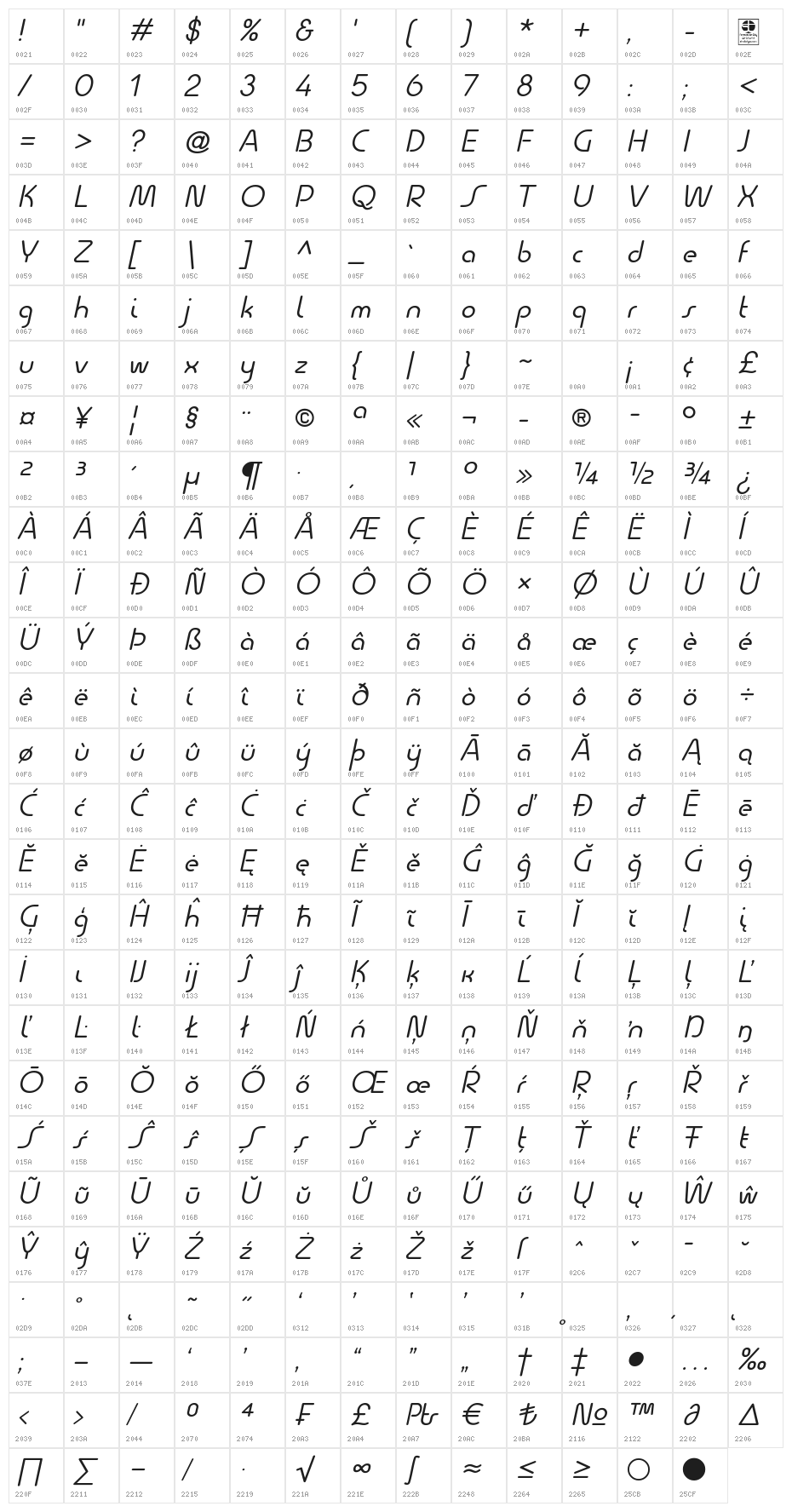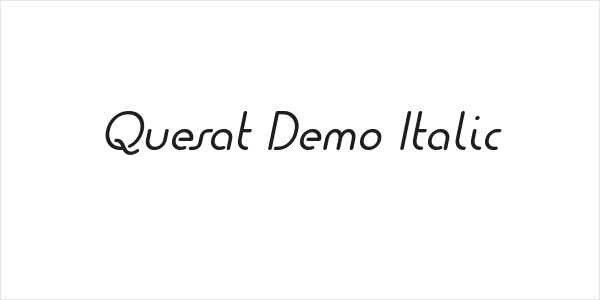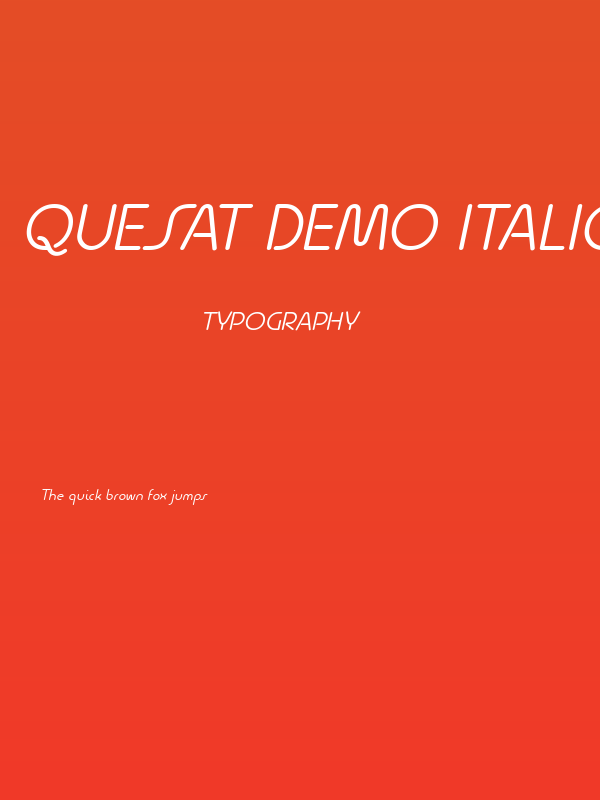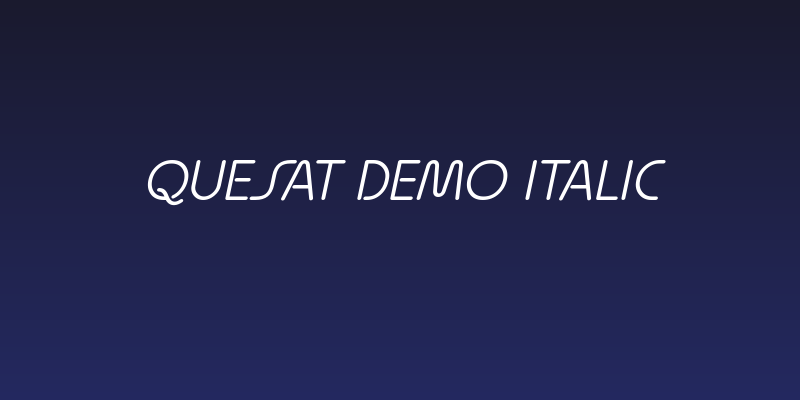
Quesat Demo Italic Font
Quesat Demo Italic Description
This font features a sleek, modern design with a slight italic slant, giving it a dynamic and forward-moving appearance. The characters are crafted with smooth curves and consistent stroke widths, creating a harmonious and fluid look. The uppercase letters are tall and elegant, while the lowercase letters maintain a balanced and approachable style. The numerals are clear and distinct, ensuring readability. Special characters are thoughtfully designed to match the overall aesthetic, making this font versatile for various applications.
| Proposed Projects | Ideal for branding projects, modern website designs, and stylish print materials. |